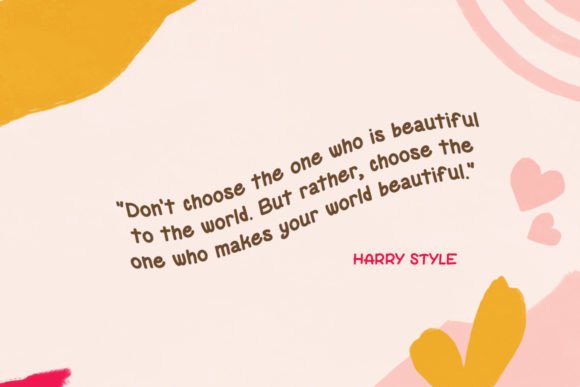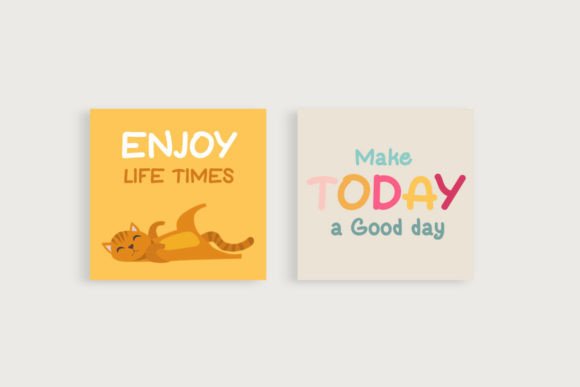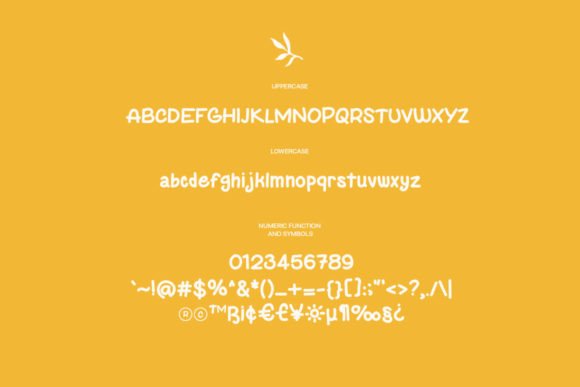
About Nusamatis Font
Nusamatis is a simple and casual handwritten font. It has a modern yet whimsical style and it will undoubtedly immerse your designs into a magical world.